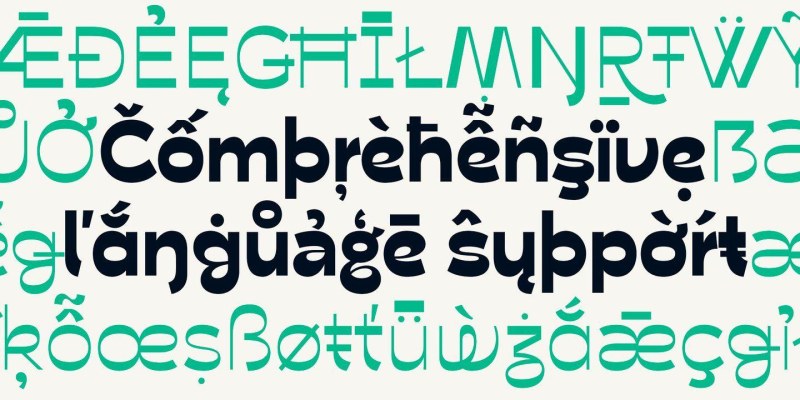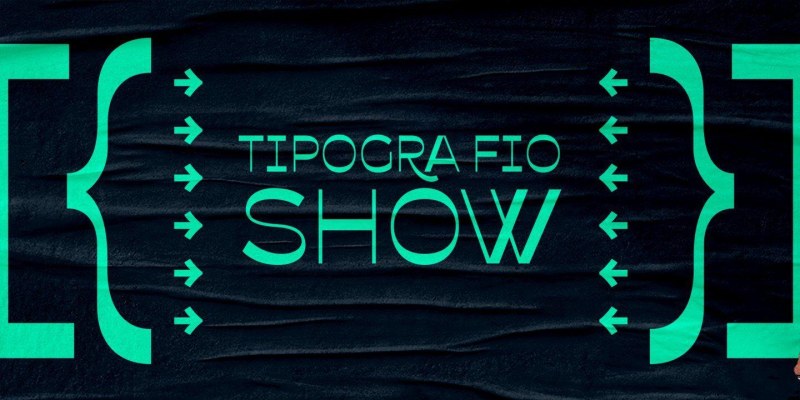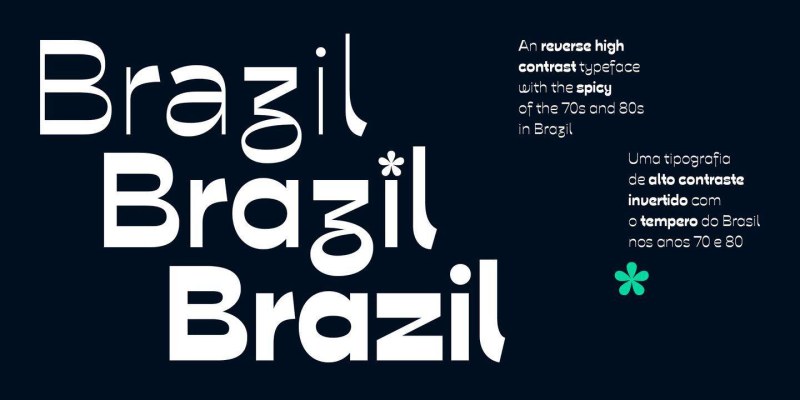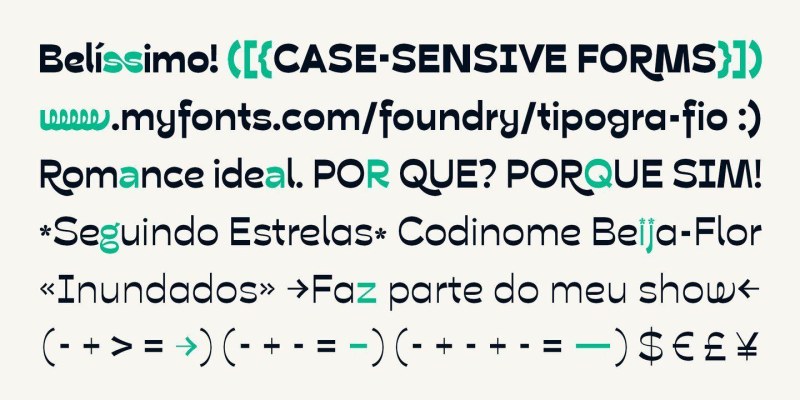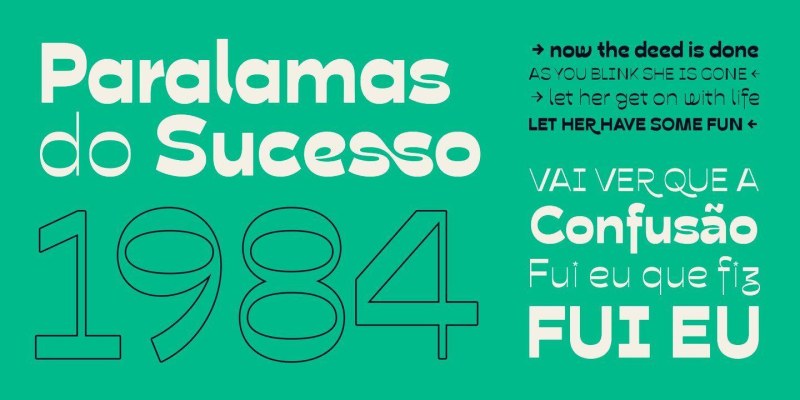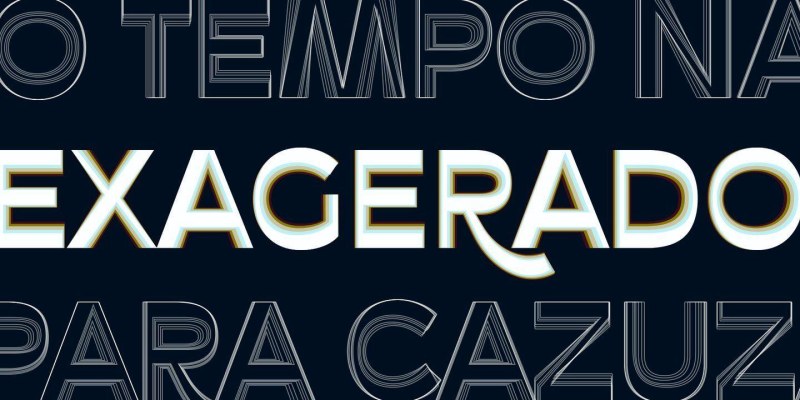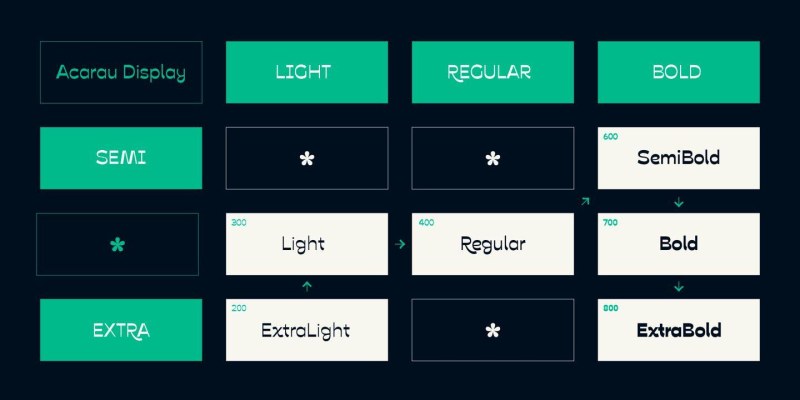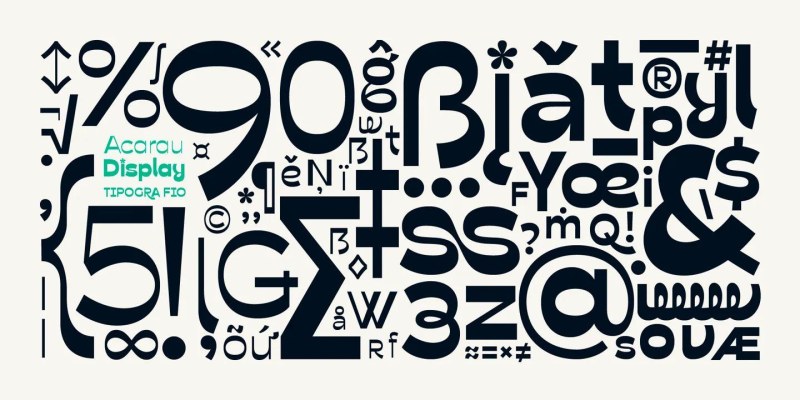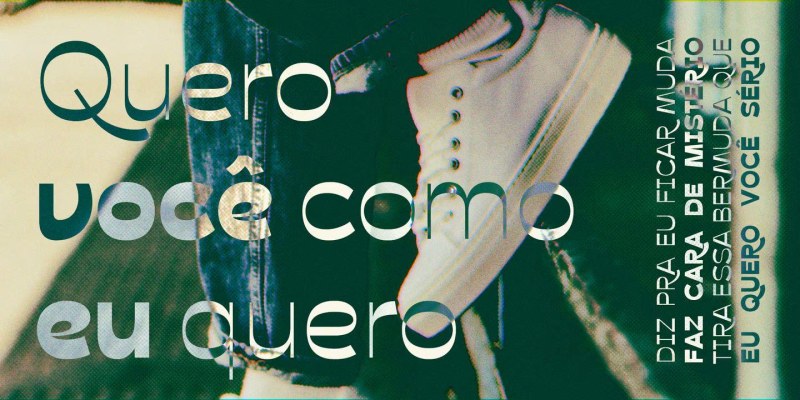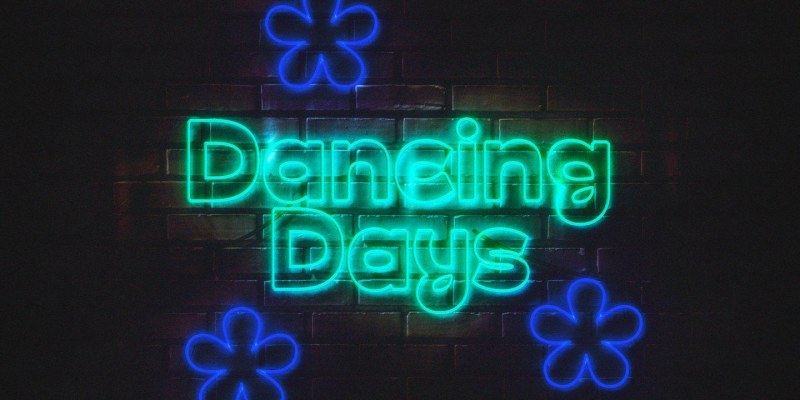
Acarau Display Font Family
Acarau is a 6 fonts display typeface with high reverse contrast—since from Roman capitals and calligraphy, usually Latin alphabet letters have thiner horizontal steams and thicker verticals, these features being optical or visual—quite adequate for logos, headlines and posters. Moreover, the style of the typeface is inspired by Italics form factor: lowercase letters having less strokes to make their shapes; A has one story; E has one stroke shape, such as K, G, Y and Z; F has a descent.
To give it more calligraphic feeling, there is contrast for uppercases as well, this is very perceived by the diagonal letters like A, K, M, N, V, W, X, Y and Z. J also has a descent. Q and R have natural swashes, but they have alternates in case the costumer want to go for more usual forms—including accent marked letters.
Acarau is a 12 months project, the contrast for uppercases were increasing as the process was made. In the middle it is found suitable blend the letter shapes with the history of Brazilian music from the 70’s and 80’s, since the font has a tropical, warm, spicy and nostalgic feeling. Songs from bands and singers that emerged on Rio de Janeiro like Paralamas do Sucesso, Cazuza, Lulu Santos and Kid Abelha bring the beach accent and rhythm that this font has.